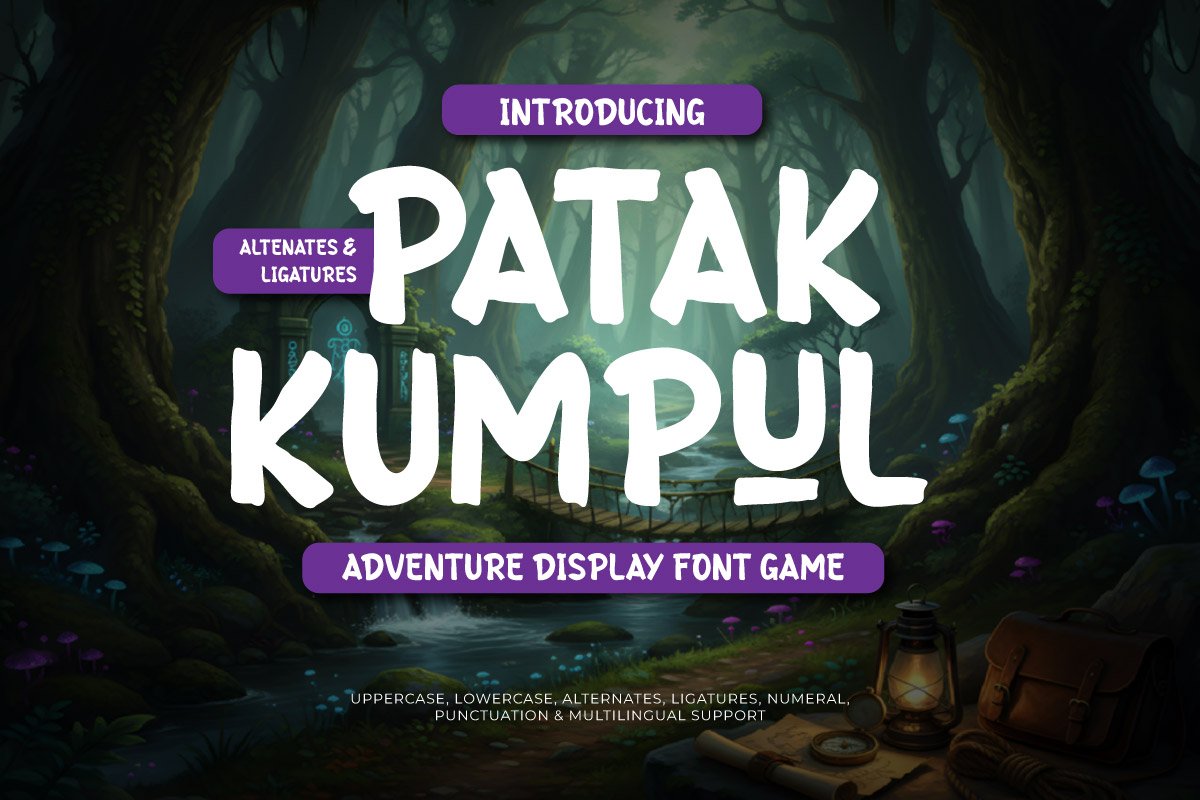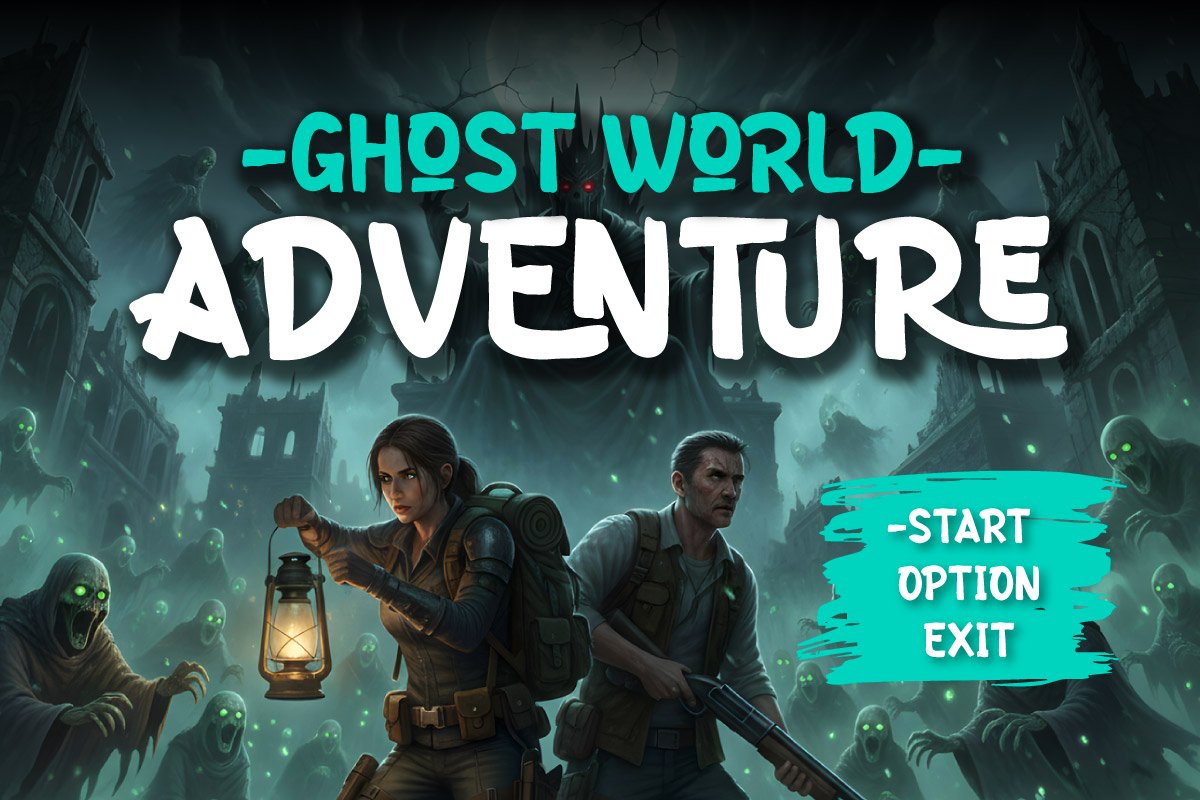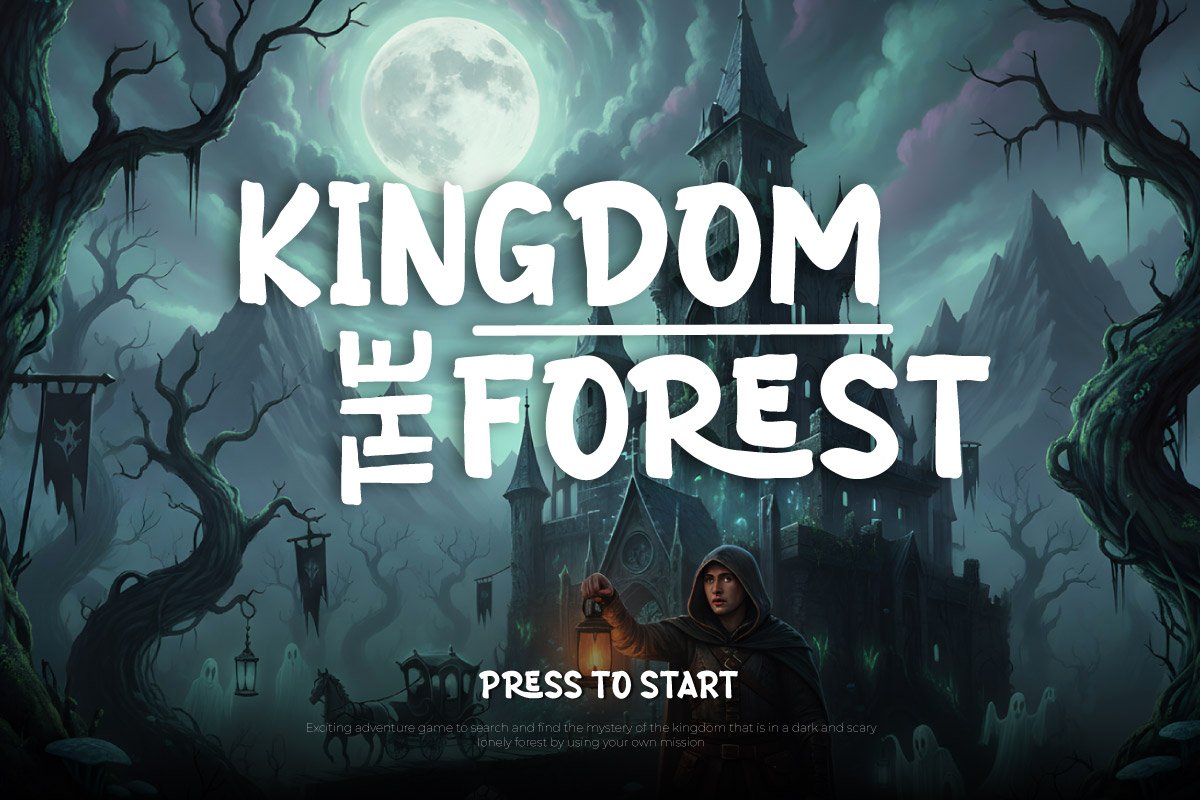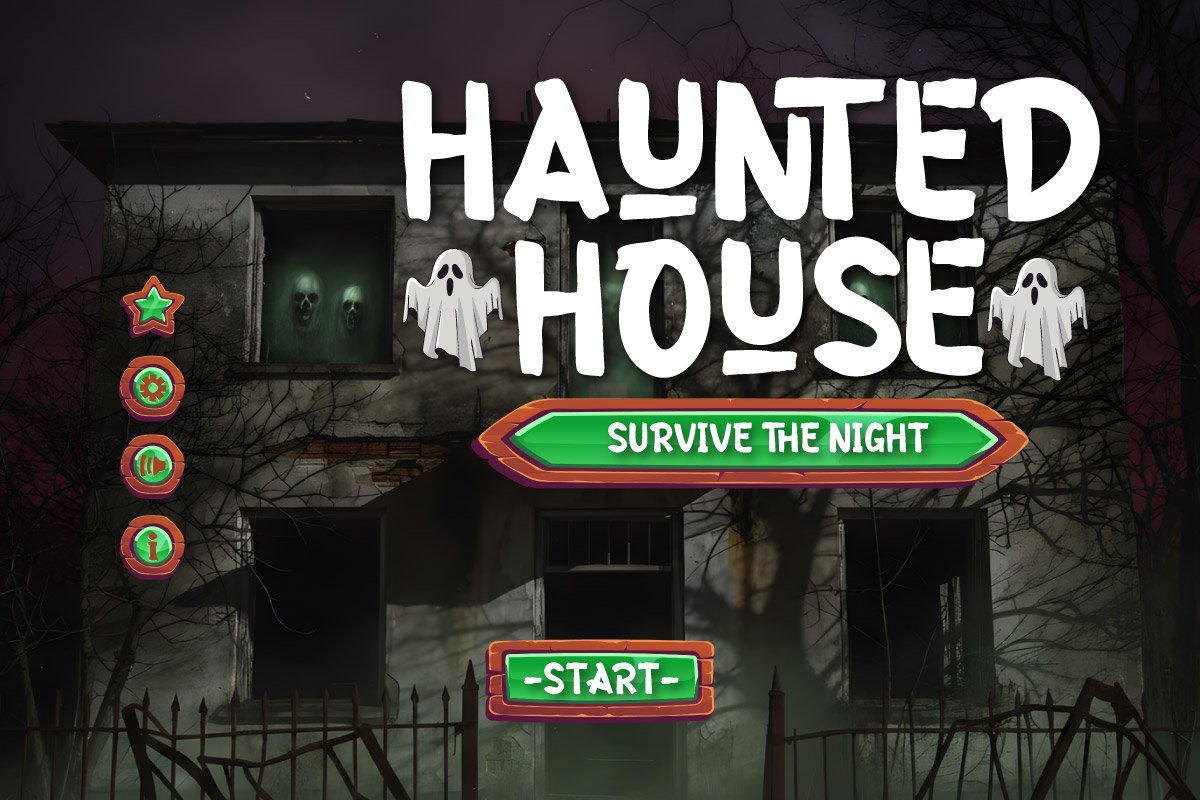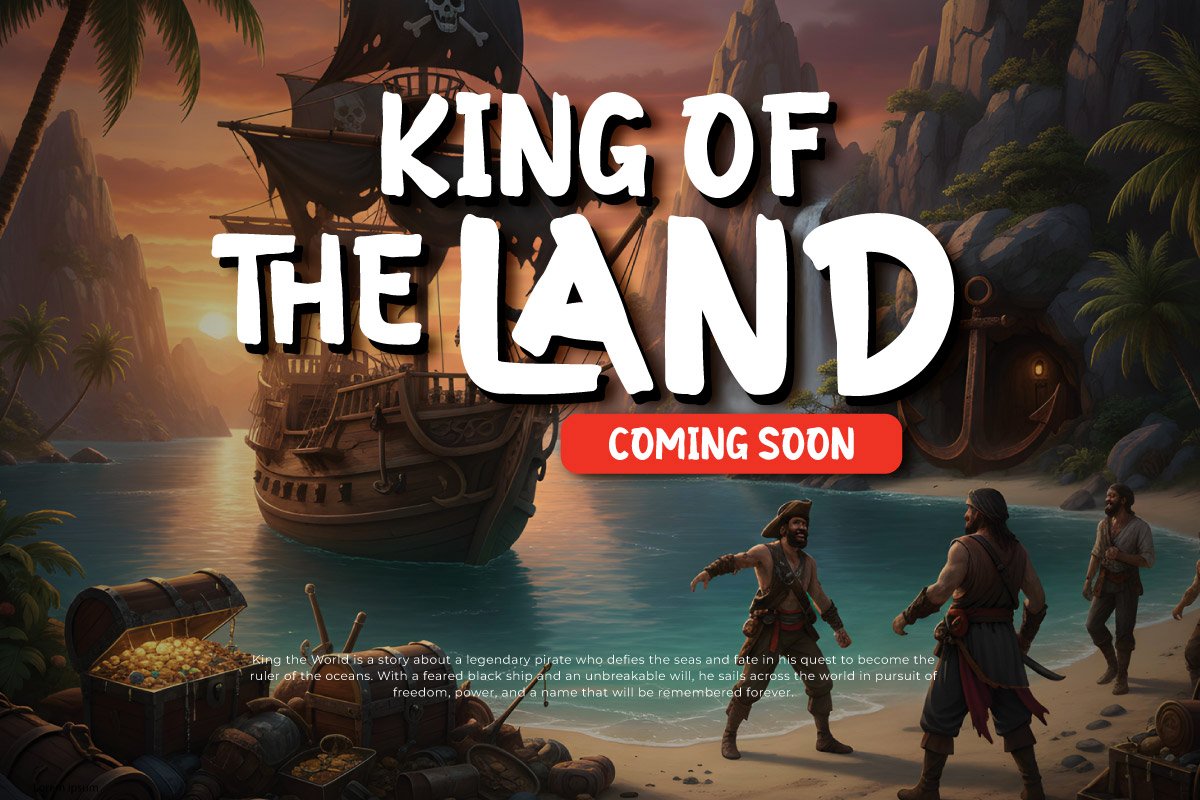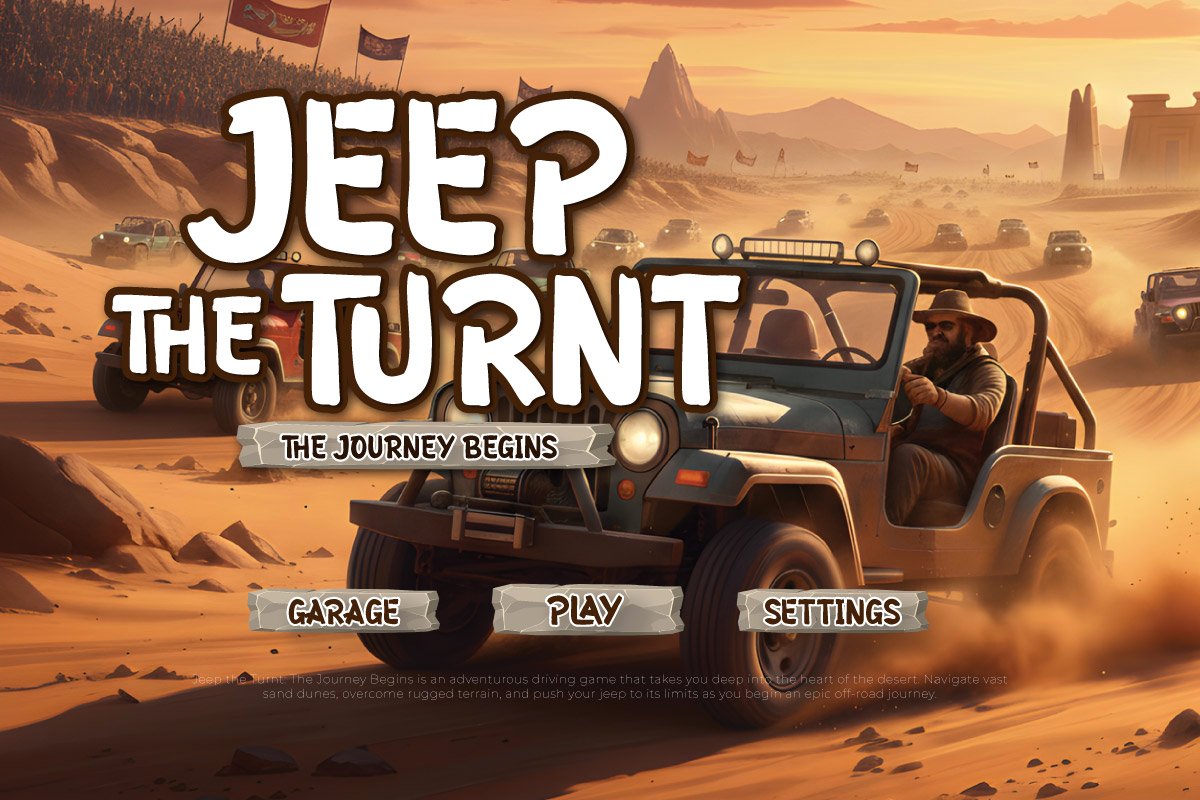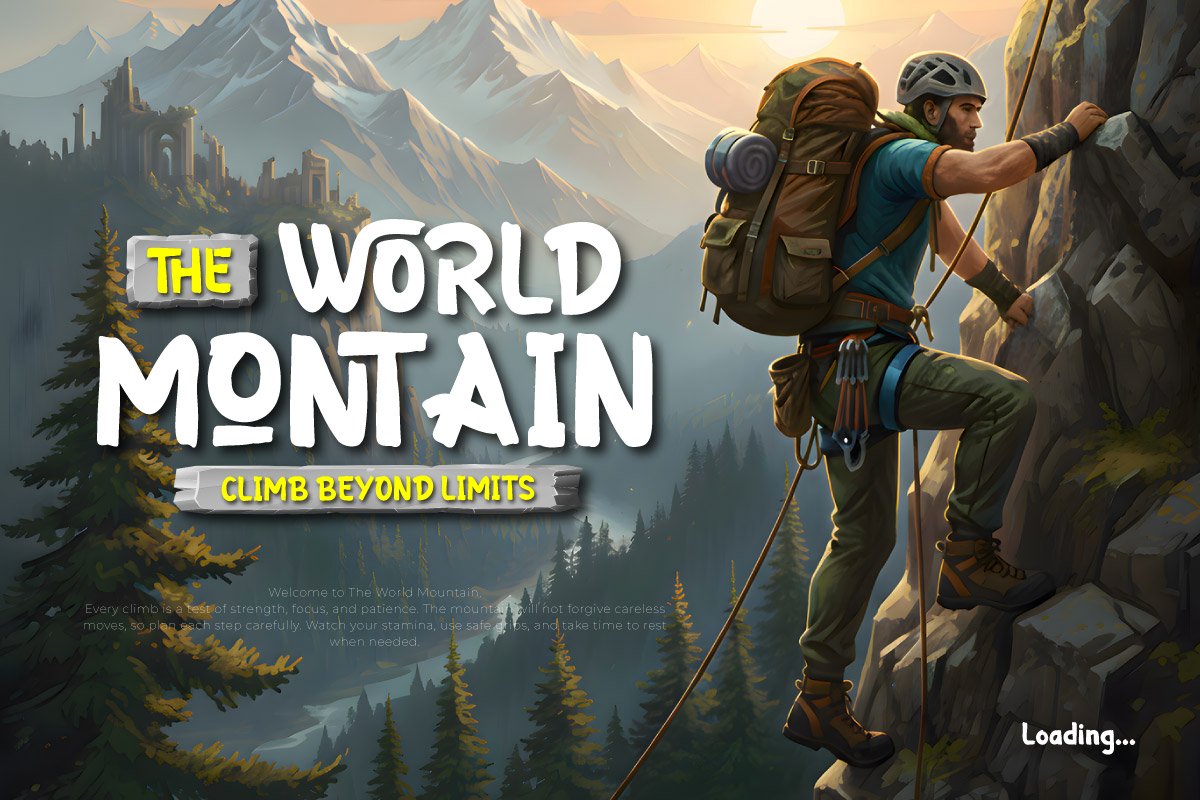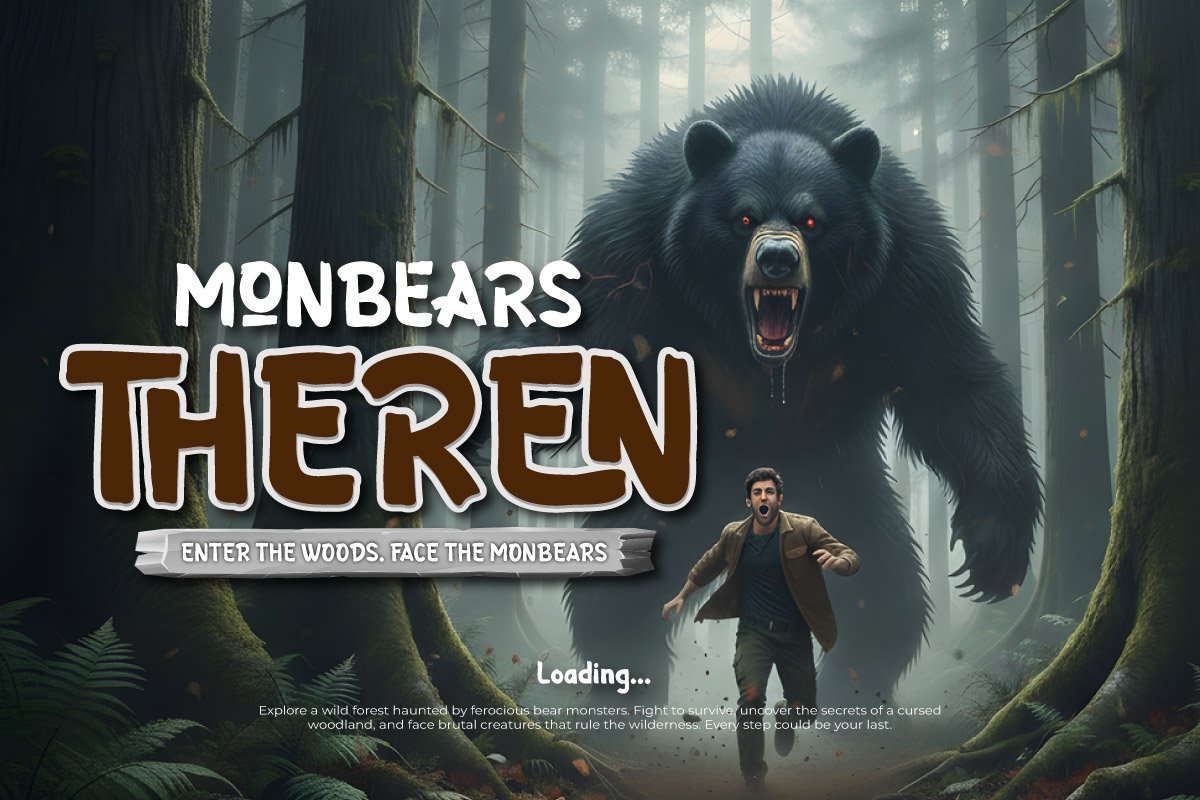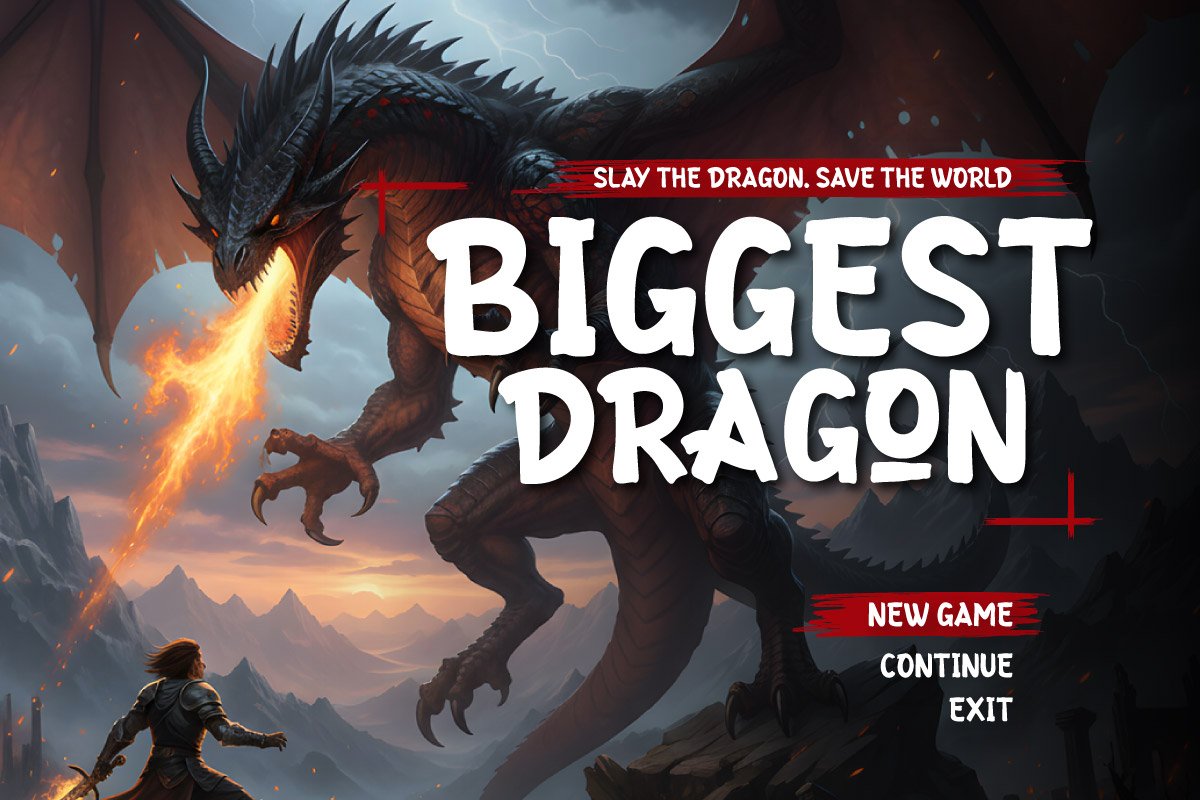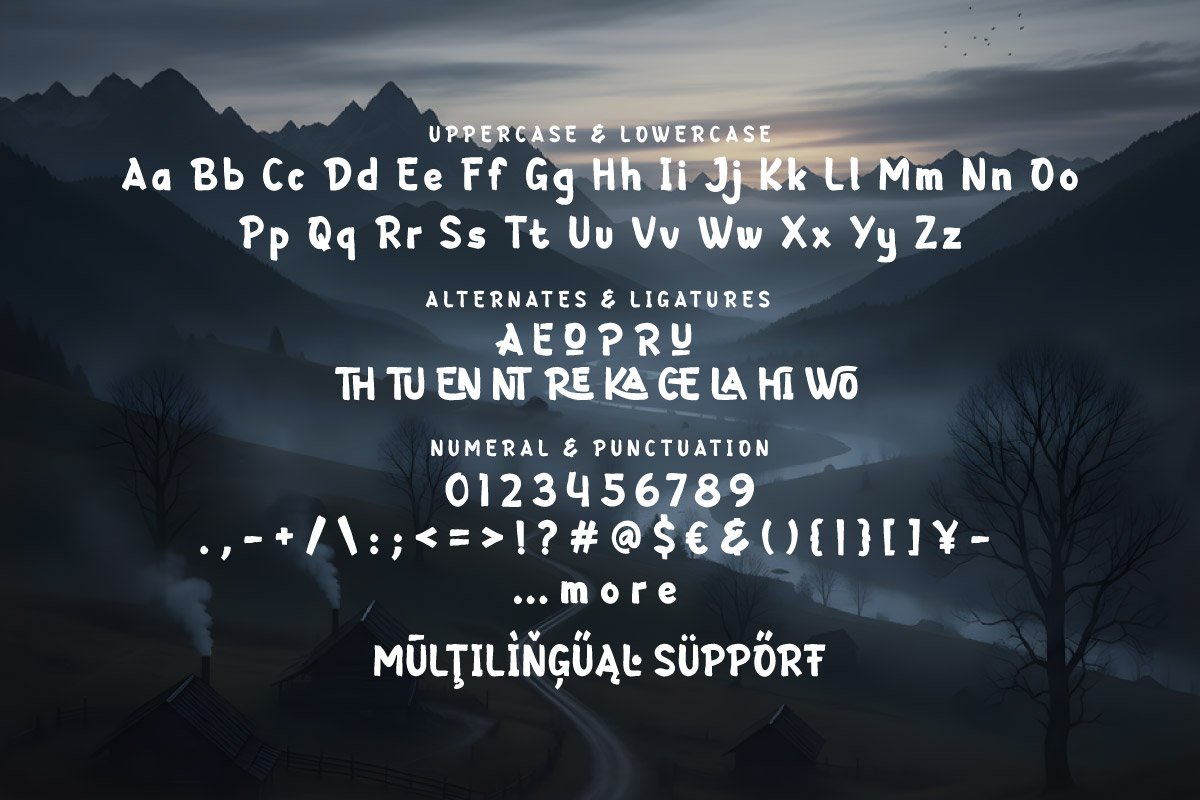
Patak Kumpul – Adventure Display Game Font
Patak Kumpul is an Adventure Display typeface designed for game visuals and fantasy-themed design needs. It features bold and firm letterforms, providing a solid character for main titles and visual identities. Its characteristics are functionally crafted to support exploration, action, and RPG world narratives.
The design structure prioritizes visual clarity to ensure the text remains readable at various display sizes. Details in each character are tailored for user interface needs (Game UI) and print materials like posters and book covers. This makes it a practical choice for designers requiring typography with a clear and professional information hierarchy.
As an Adventure Game Font, Patak Kumpul is equipped with uppercase, lowercase, and extensive multilingual support. This font is suitable for game logos, cinematic promotional materials, and adventure-themed branding requiring a consistent aesthetic. Patak Kumpul offers a solid typography solution for various needs within the creative and entertainment industries.
Multilingual Support, including 85 languages: